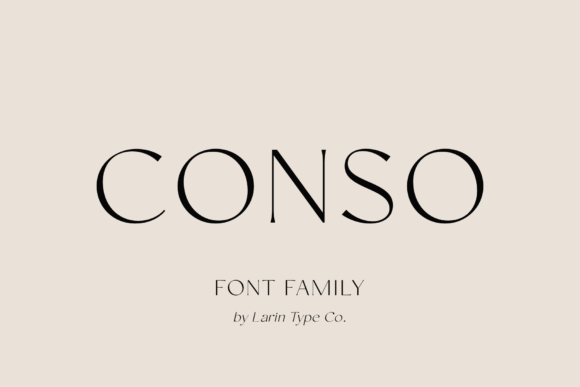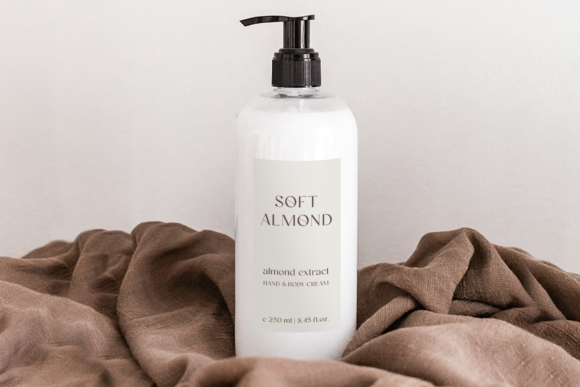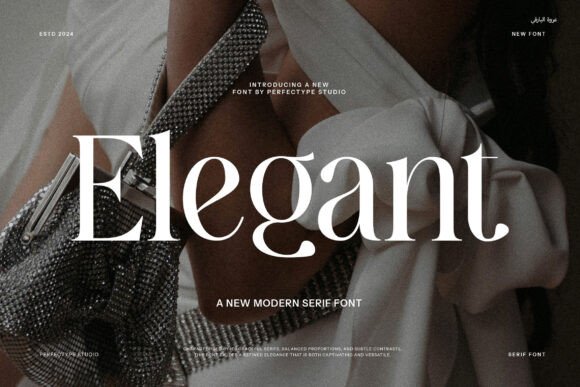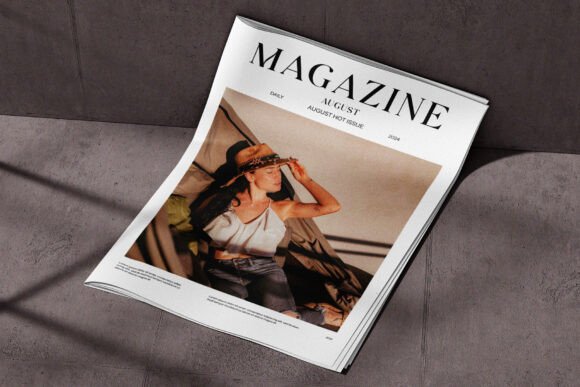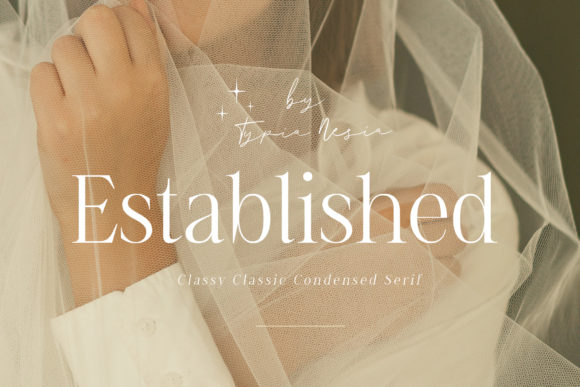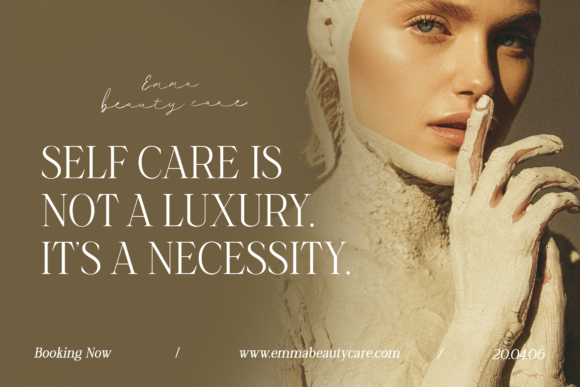
20 Premium Serif Fonts for Fashion Branding & Editorials
Premium serif fonts for fashion branding are the timeless foundation behind many luxury identities. They bring elegance, confidence and editorial character to logos, magazines, packaging and campaigns. The best fashion serif fonts do not simply look beautiful—they create a sense of heritage, sophistication and exclusivity from the first glance.
This guide sorts 20 premium serif fonts by the role they play: refined luxury wordmarks, high-fashion editorial styles, modern contrast serifs, and versatile branding companions. Choose by the feeling and function you need rather than by style alone.
How to Choose Premium Serif Fonts for Fashion Branding
A fashion serif font has to work across many touchpoints—from a small clothing label to a large editorial headline. Judge these premium serif fonts by how well they balance beauty, readability and brand personality.
Strong letterform character: A memorable serif needs a distinctive shape that makes a logo recognizable.
Small-size performance: Fashion branding appears on tags, packaging and digital screens, so test the font beyond large headlines.
Editorial quality: High-fashion fonts should feel refined enough for magazines while remaining practical for everyday branding.
Useful variations: Multiple weights, italics and alternate characters give a brand more flexibility across campaigns.
Timeless appeal: The best premium serif fonts feel connected to tradition while still looking modern and relevant.
Elegant Serif Fonts for Luxury Fashion Logos
Start with the classics. These premium serif fonts for fashion branding create sophisticated wordmarks with a sense of heritage and confidence. Their refined proportions, graceful details and balanced contrast make them ideal for luxury labels, boutique brands and editorial identities.
Olive & Citrus Serif Font
Olive & Citrus is a modern serif typeface that perfectly balances classic elegance with contemporary sophistication. I love using it for branding, logos, magazines, editorial layouts, packaging, beauty projects, and social media graphics because its refined letterforms create a polished and luxurious visual identity. The timeless serif design is both versatile and stylish, making every project feel professional, elegant, and effortlessly memorable.
Lavish Serif Font
Lavish is a tall and elegant serif font that brings timeless sophistication to modern designs. I love using it for luxury branding, logos, editorial layouts, invitations, product packaging, labels, fashion projects, and social media graphics because its refined letterforms create a graceful and upscale visual identity. The clean, high-contrast serif style adds a polished and premium feel, making every project look stylish, memorable, and effortlessly elegant.
Healing Serif Font
Healing Elegant Serif is a sophisticated serif typeface inspired by minimalist luxury branding, offering a timeless blend of elegance and modern simplicity. I love using it for logos, branding, brochures, invitations, editorial layouts, beauty packaging, advertising, website designs, and premium marketing materials because its refined letterforms create a polished and upscale look. The clean serif details and graceful proportions make every project feel luxurious, professional, and effortlessly stylish.
Established Serif Font
Established is a classy condensed serif font that blends timeless elegance with modern luxury. I love using it for premium branding, logos, fashion editorials, beauty packaging, magazines, invitations, book covers, stationery, boutique identities, and sophisticated advertising because its refined letterforms create a striking, high-end visual presence. The elegant condensed style is perfect for luxury-focused projects, adding a polished, fashionable, and effortlessly sophisticated touch to every design.
Fairy Dreams Serif Font
Fairy Dreams is a minimalist modern serif font that combines clean elegance with beautifully crafted alternates and graceful swashes. I love using it for branding, logos, wedding invitations, editorial layouts, packaging, beauty projects, and social media graphics because its refined letterforms create a sophisticated yet effortless look. The stylish alternates and decorative swashes add a touch of personality and luxury, making every design feel timeless, elegant, and beautifully polished.
Amastay Serif Font
Amastay is a natural handwritten calligraphy font that captures the organic beauty of flowing ink with elegant cursive strokes and graceful swash tails. I love using it for wedding invitations, branding, logos, greeting cards, packaging, beauty projects, stationery, and social media graphics because its authentic handwritten style creates a warm and sophisticated feel. The fluid letterforms and expressive swashes add timeless charm, making every design look personal, elegant, and effortlessly refined.